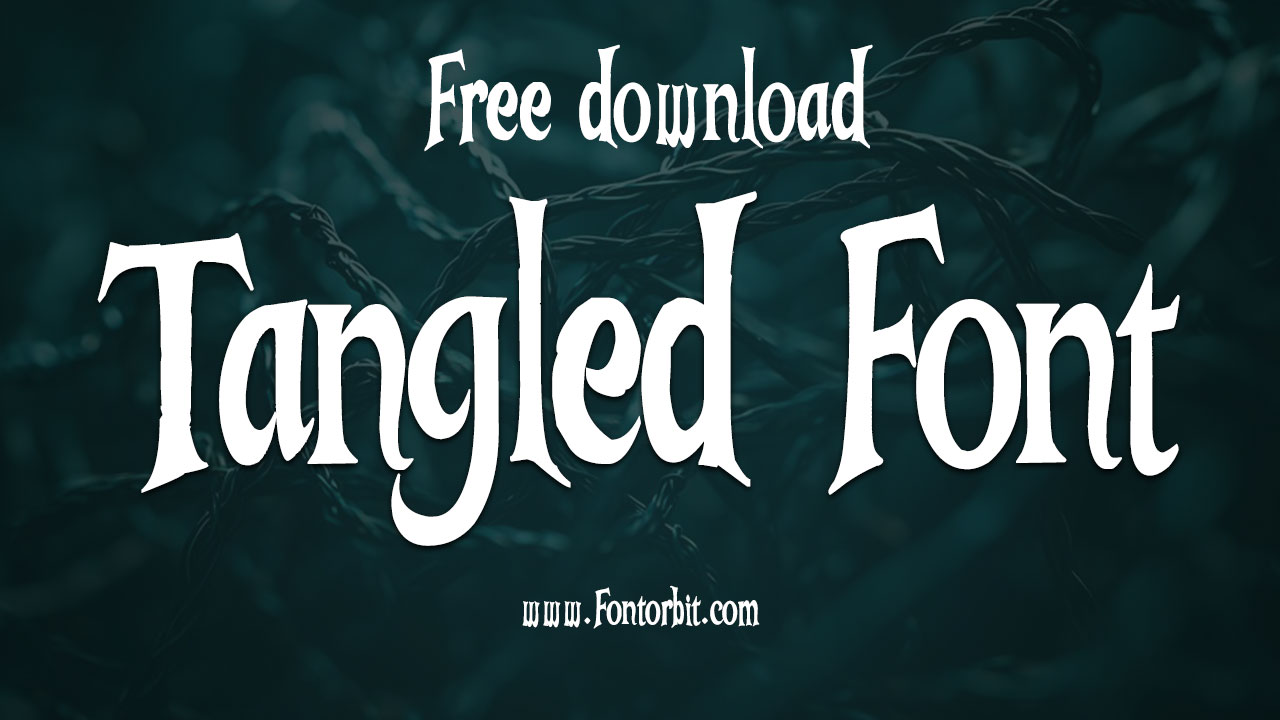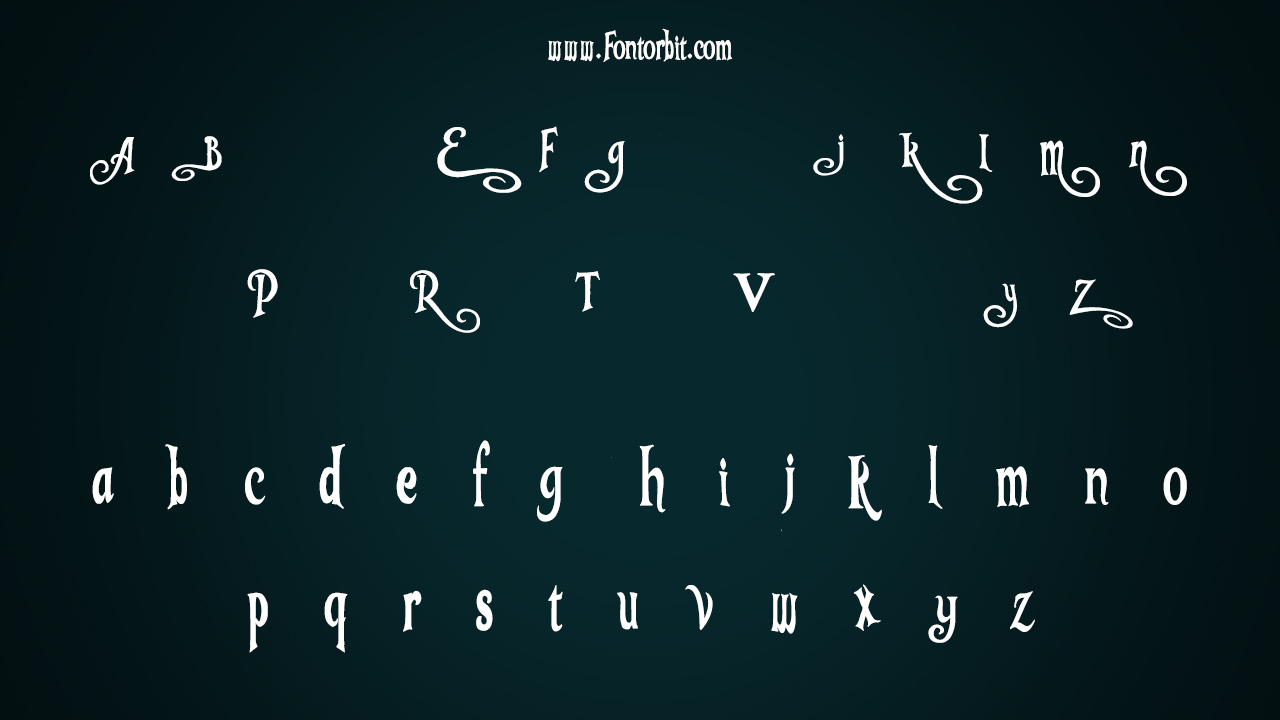
The Tangled Font, inspired by Disney’s Rapunzel, is a distinctive typeface created by Esteban 4058. Although the original Tangled font was custom-designed, you can find a similar version called Tangled 1.2, a replica of the demo.
Types In The Tangled Font Family
a. Tangled Regular
The Tangled Font is perfect for designs requiring a Disney-inspired, enchanting style. Apply it for Disney-themed projects, logo creation, and promotional materials to add a magical and whimsical touch. Its unique design adds a magical touch to any project.
The Tangled Font, inspired by the Disney Rapunzel logo, offers a whimsical and enchanting design. Free for personal use, it is ideal for creative projects and Disney-themed designs. Its unique style captures the magic of the original logo.
1.How To Identify Tangled Font From Similar Fonts?
Tangled Font features a whimsical, Disney-inspired design with playful letterforms. It closely resembles the Rapunzel logo, distinguishing it from fonts similar to Berthold Baskerville.
3.What Are The Tangled Font History And Origins?
The Tangled Font, created by Esteban4058, is inspired by the Disney Rapunzel logo and designed to capture the whimsical and enchanting style of the movie’s title.